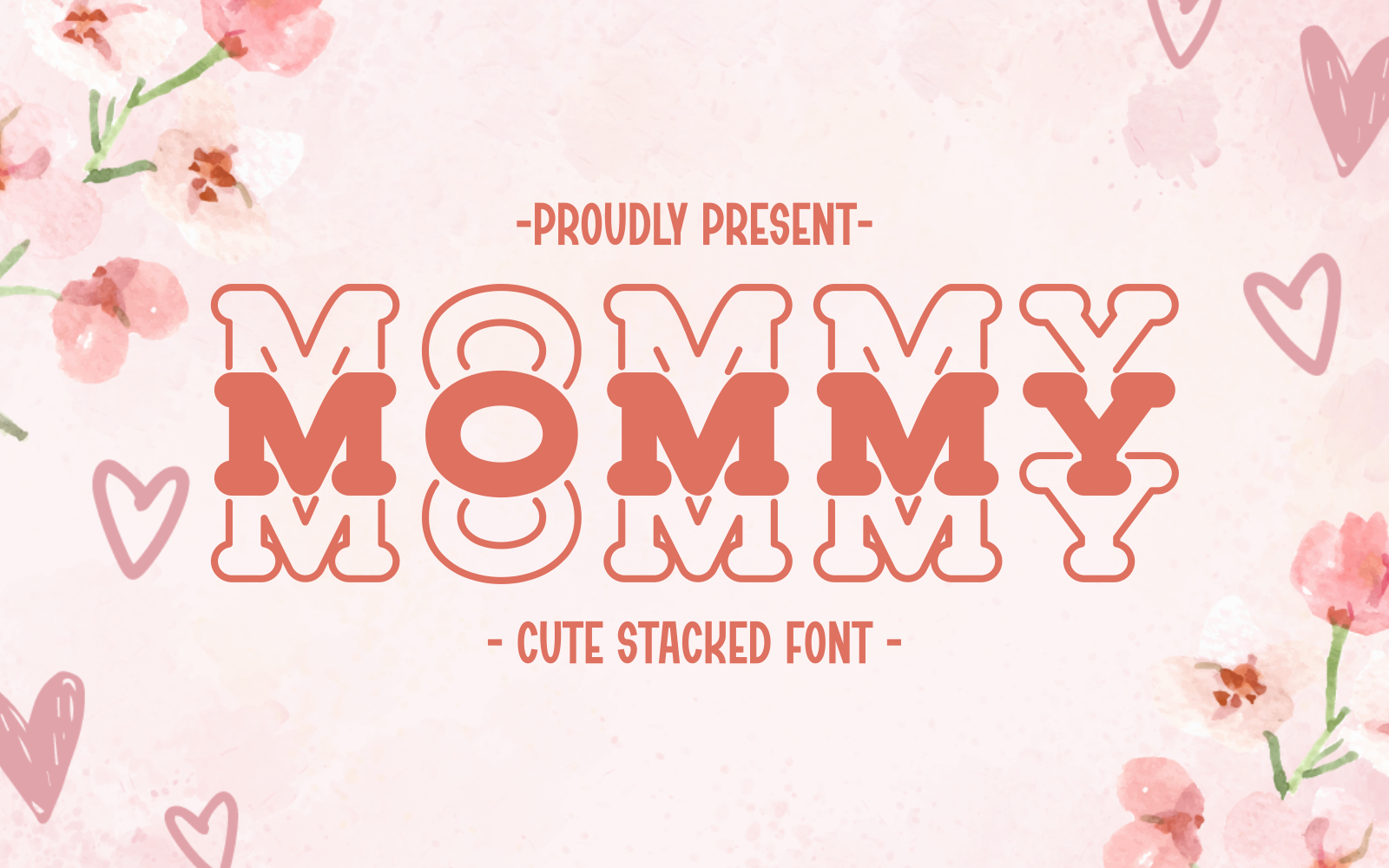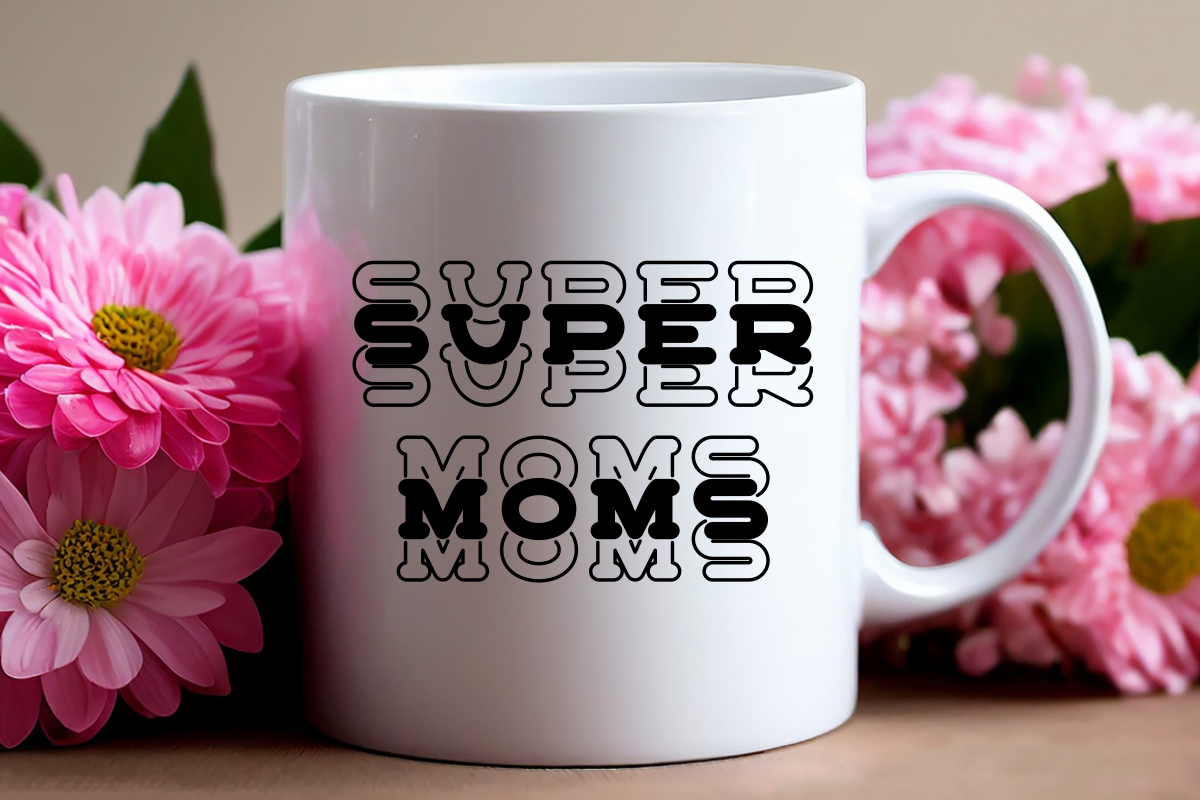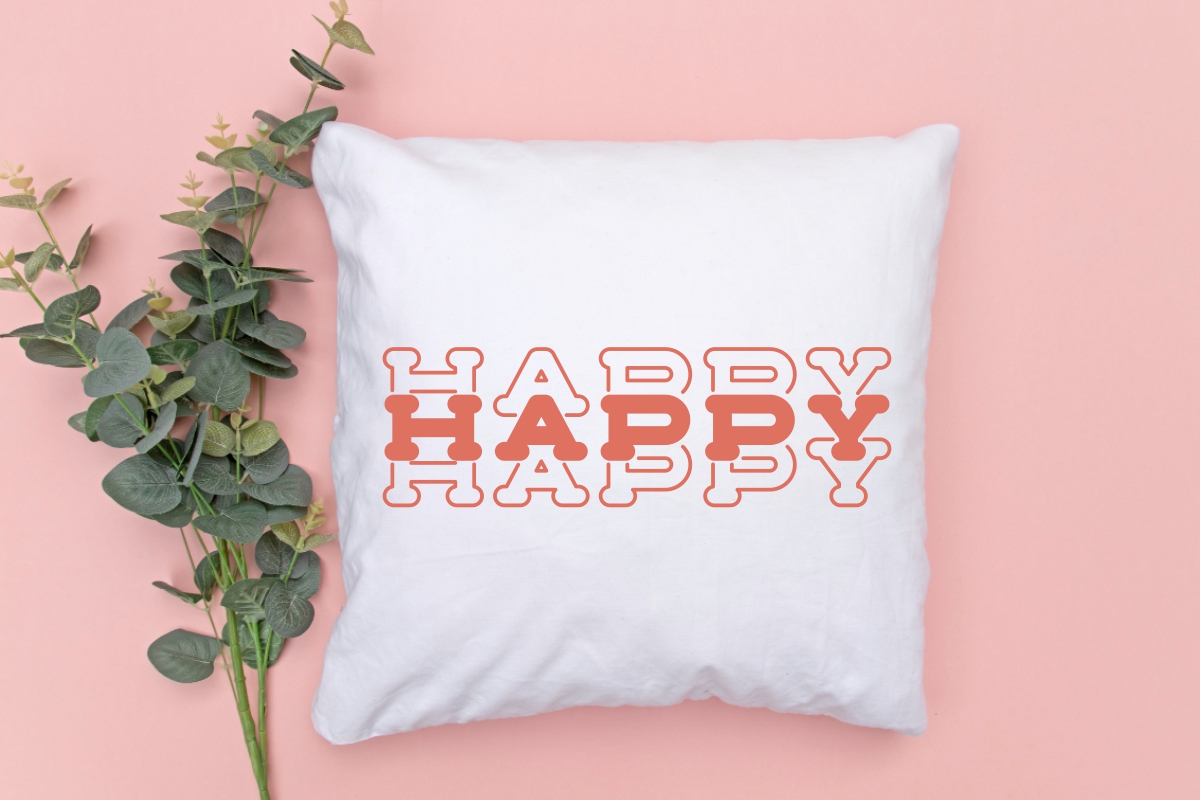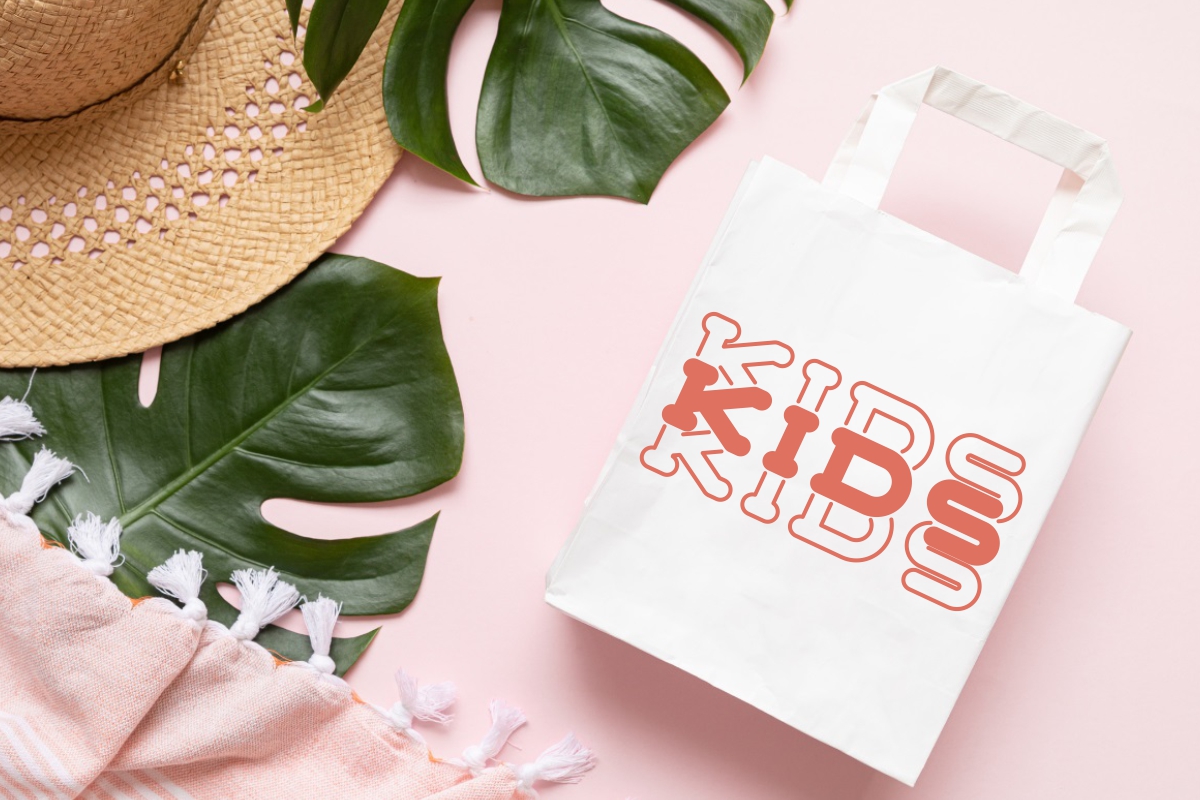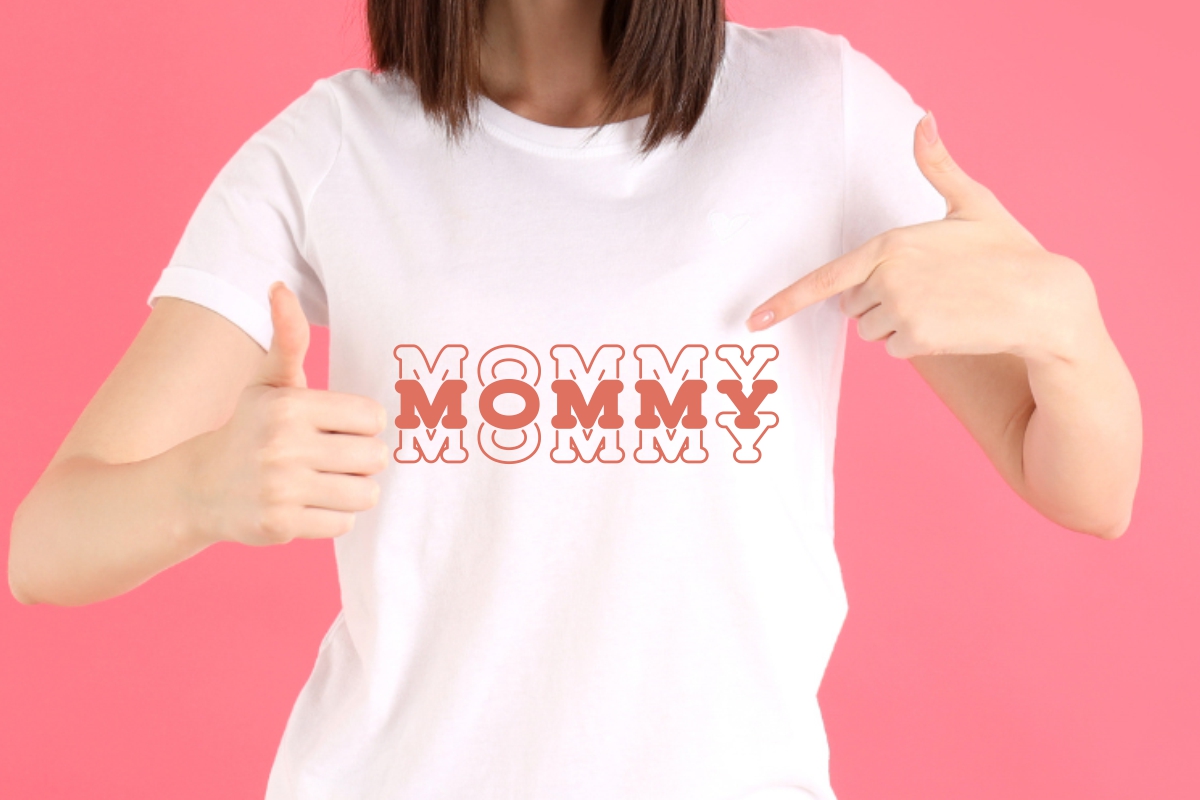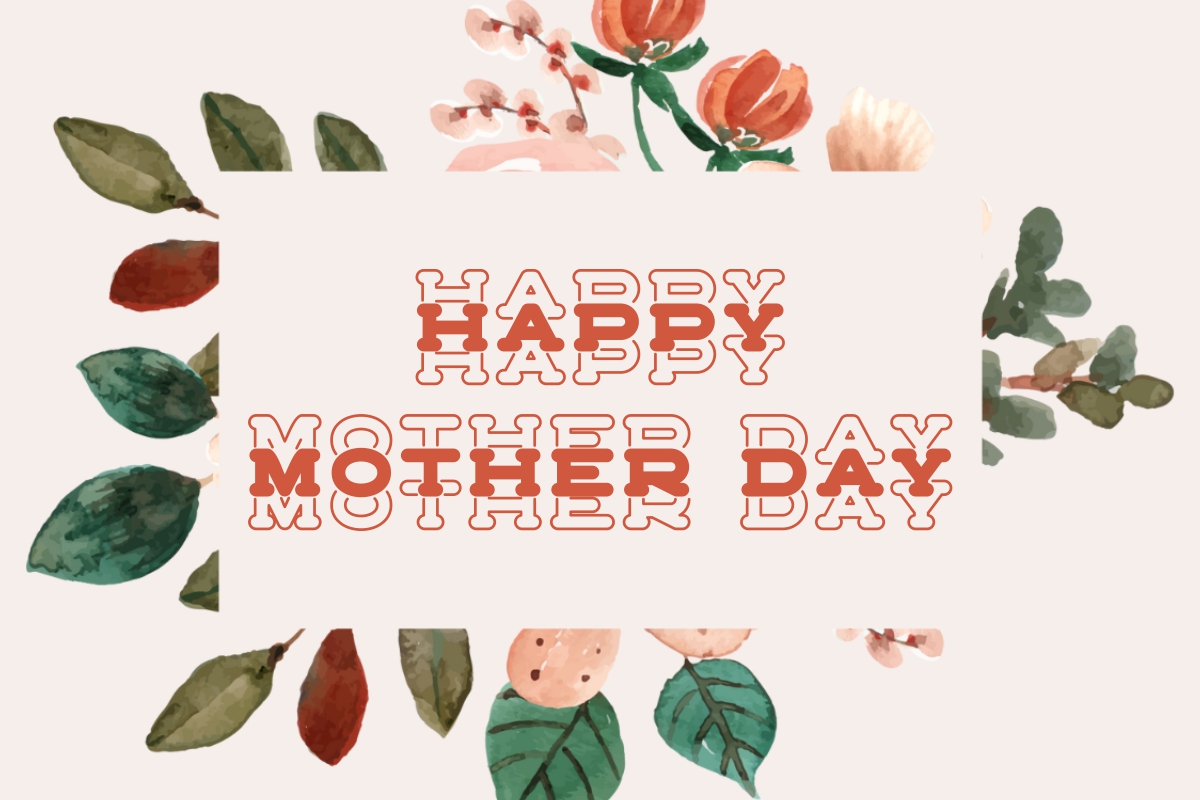
Mommy - Cute Stacked Font
Introducing MOMMY, a charming and bubbly display font designed to bring a smile to any project. What makes Mommy truly special is its unique stacked feature: it comes with separate solid and outline layers that allow you to easily create stunning, colorful, and deep effects in seconds! This font is perfect for any project requiring a hand-drawn, friendly, and cute aesthetic. Its versatility makes it a must-have tool for crafters and designers working on personalized items.